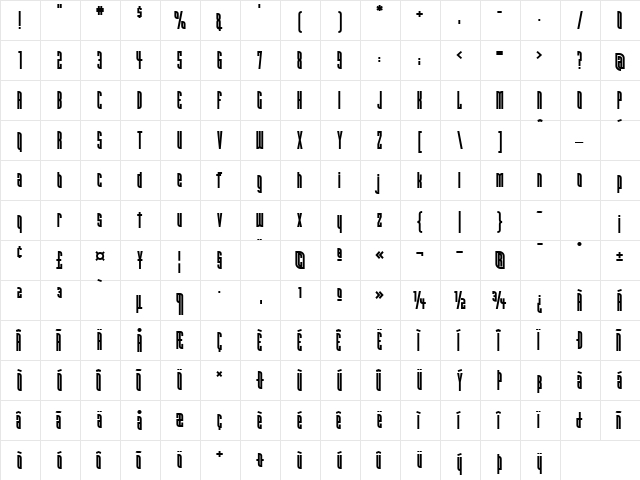
Narrowband Prime ICG Bold Font Preview
Design Context for Narrowband Prime ICG Typeface
Narrowband Prime ICG offers clean, dependable letterforms without strong stylistic allegiance, making it a practical choice for designers who need flexibility. The heavy weight commands attention and anchors typographic hierarchies. The condensed width makes it efficient for tight spaces without sacrificing legibility.